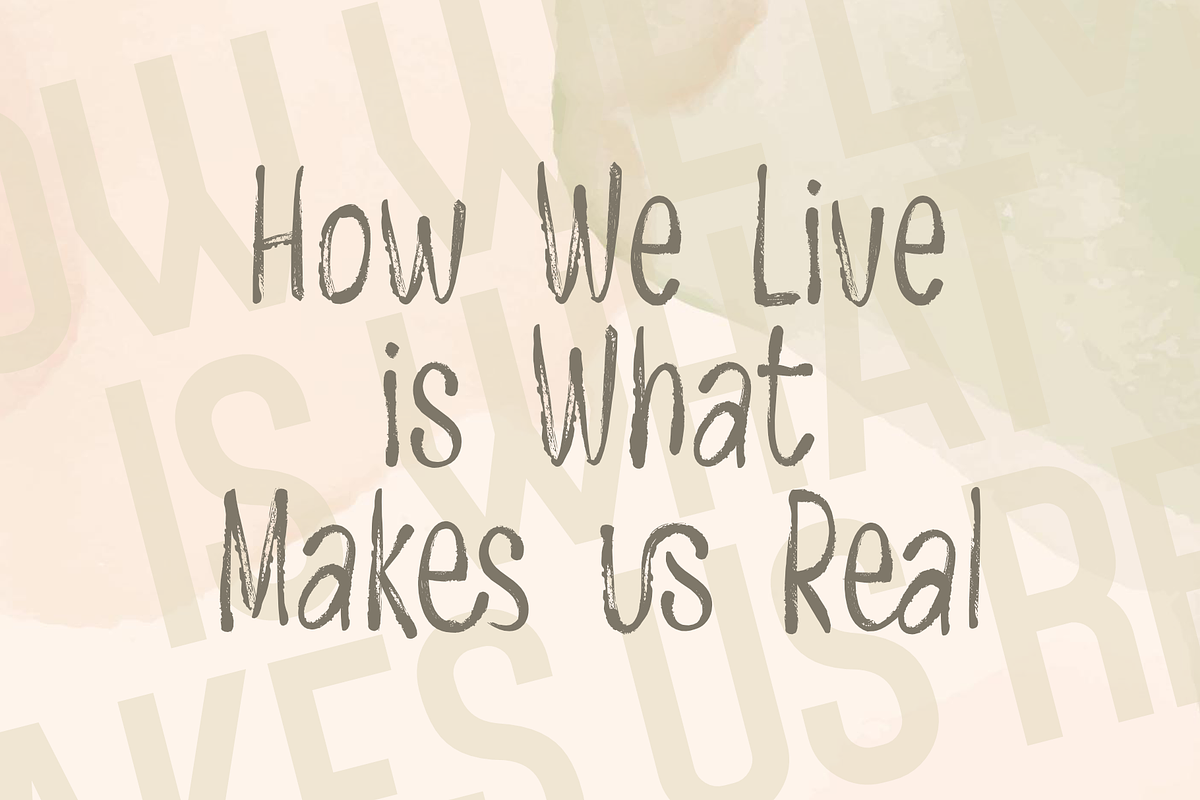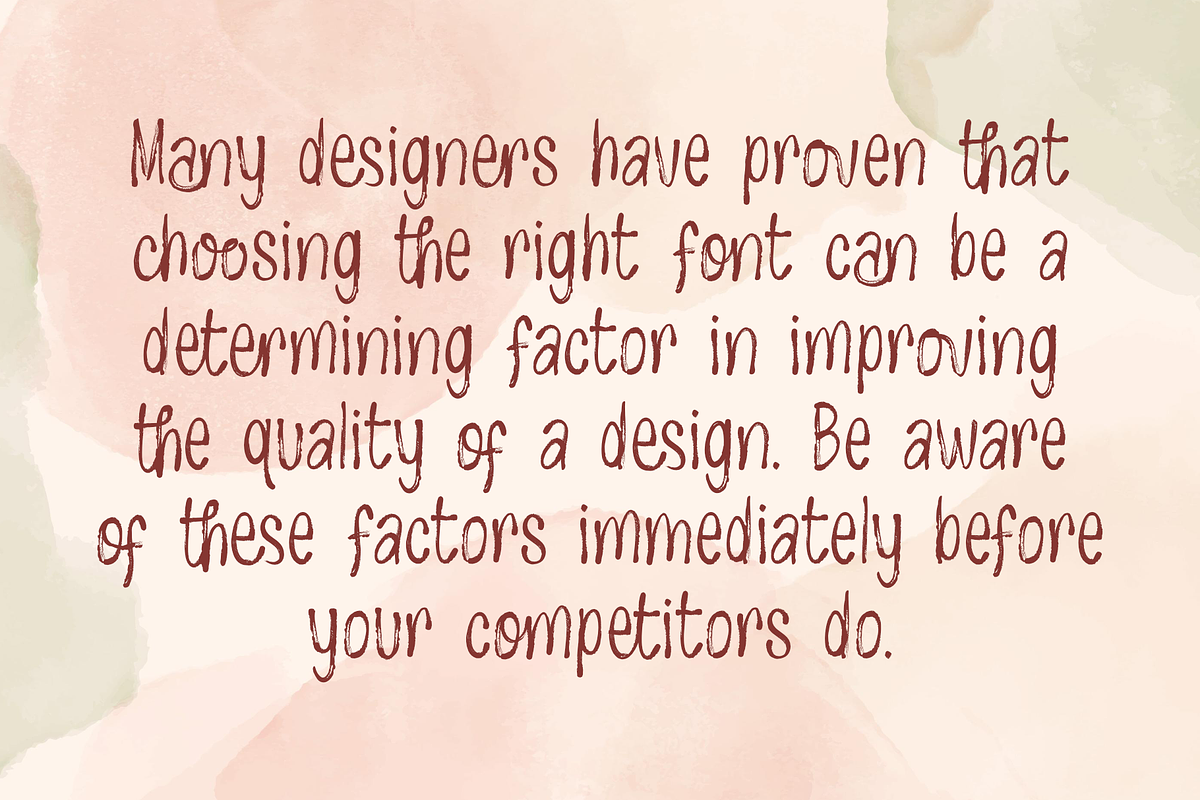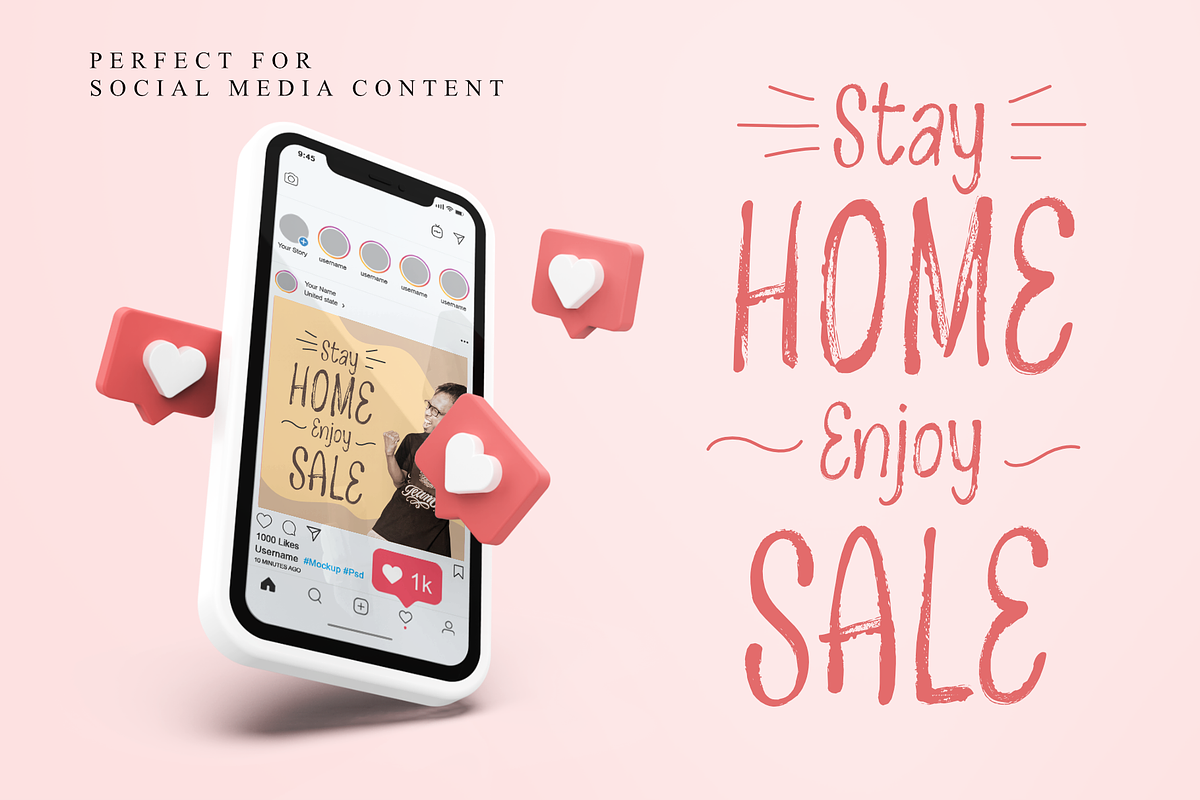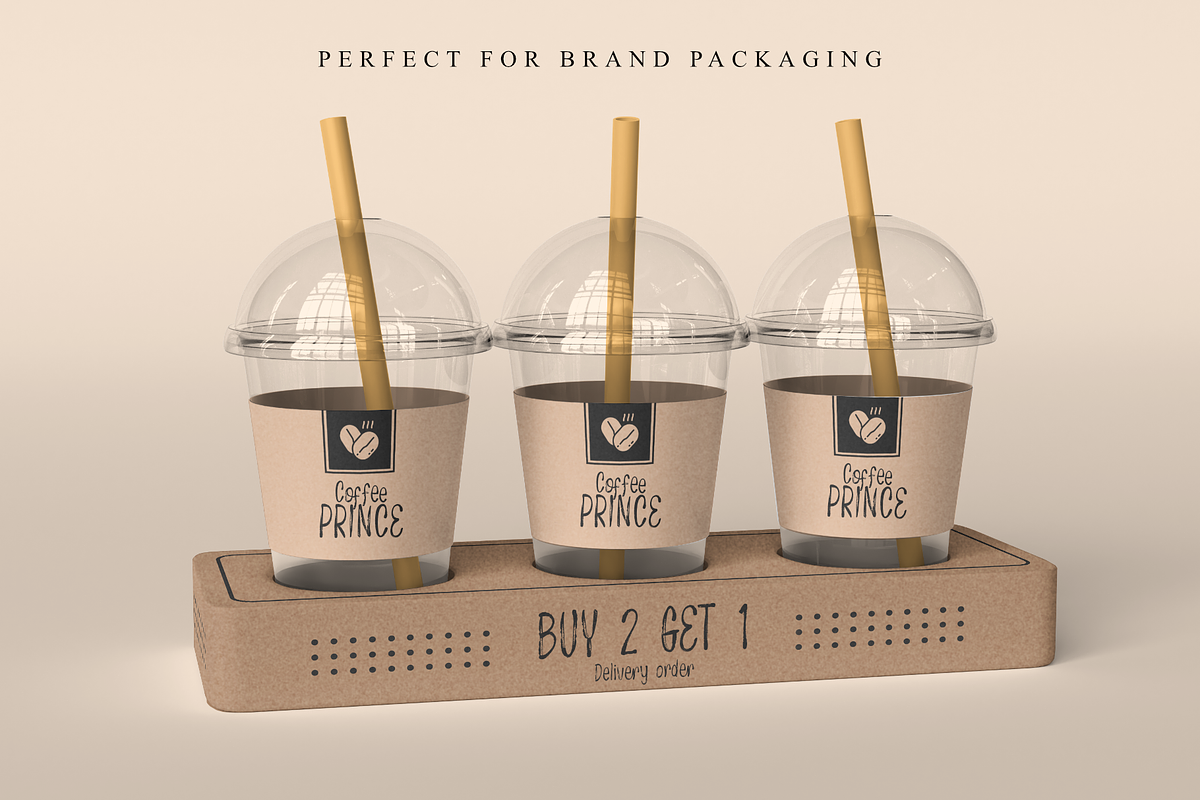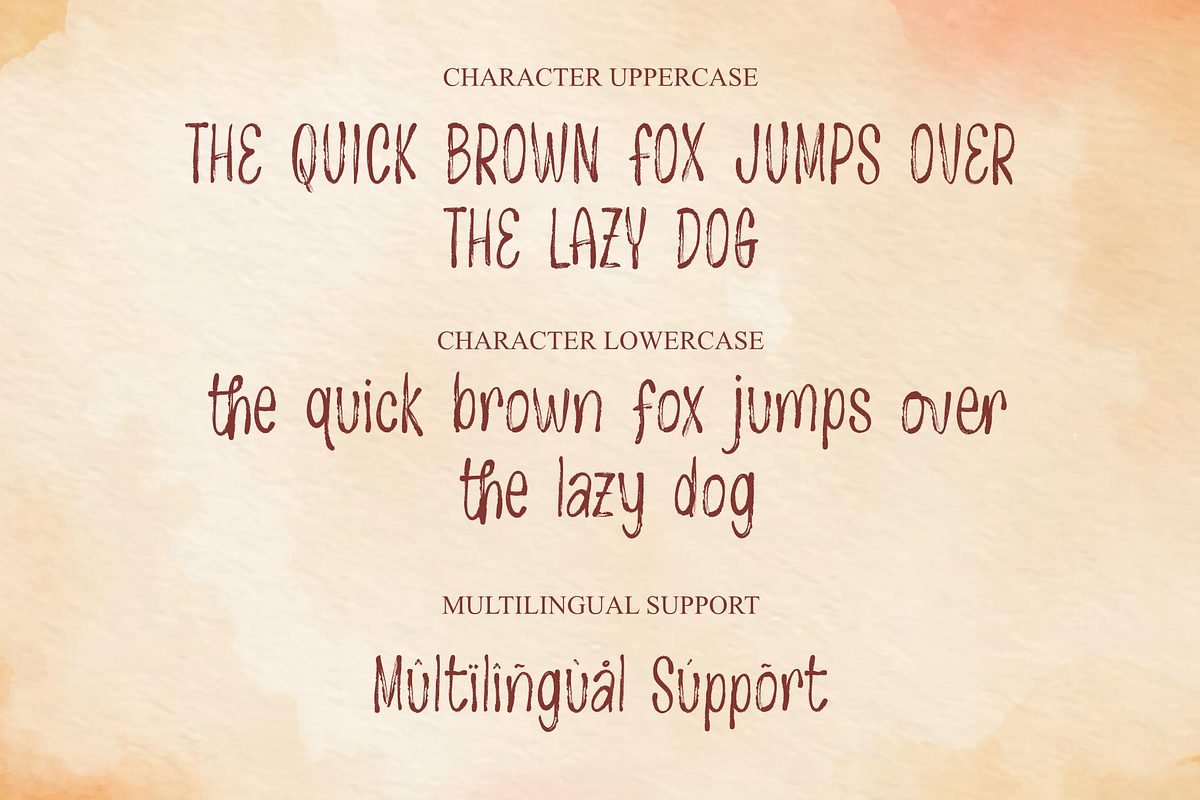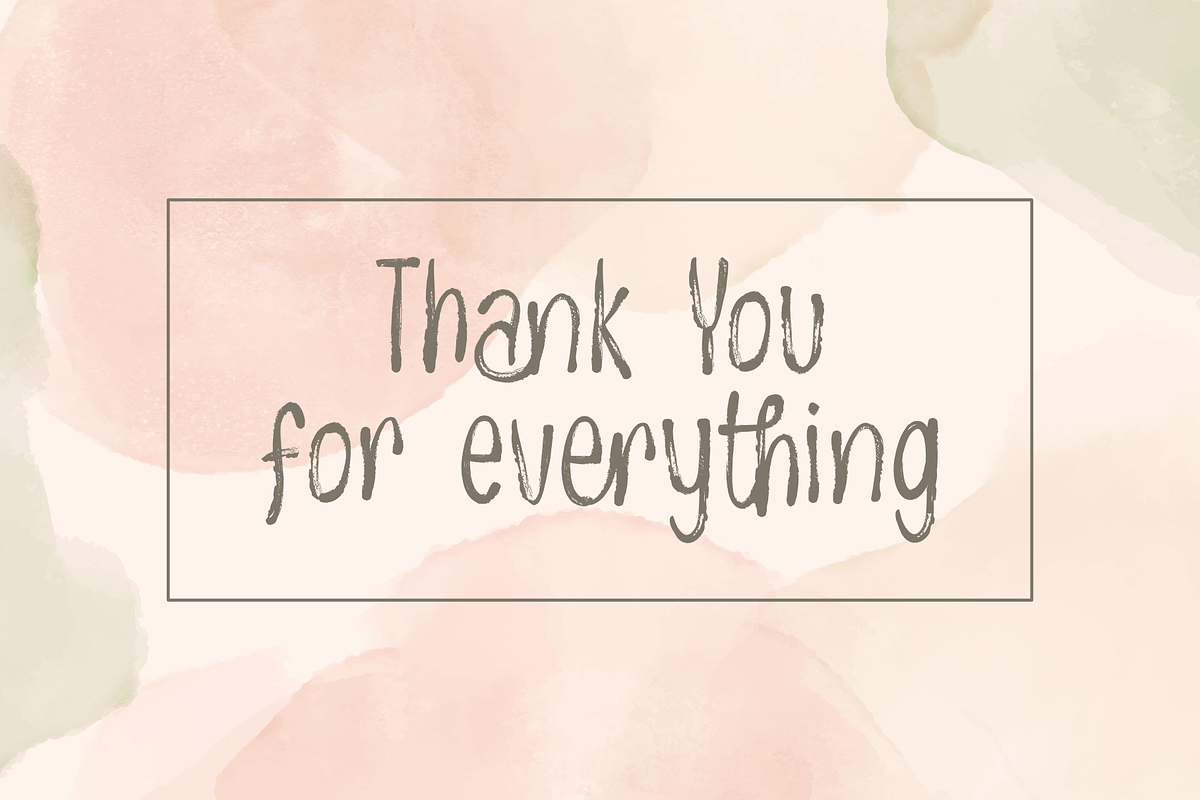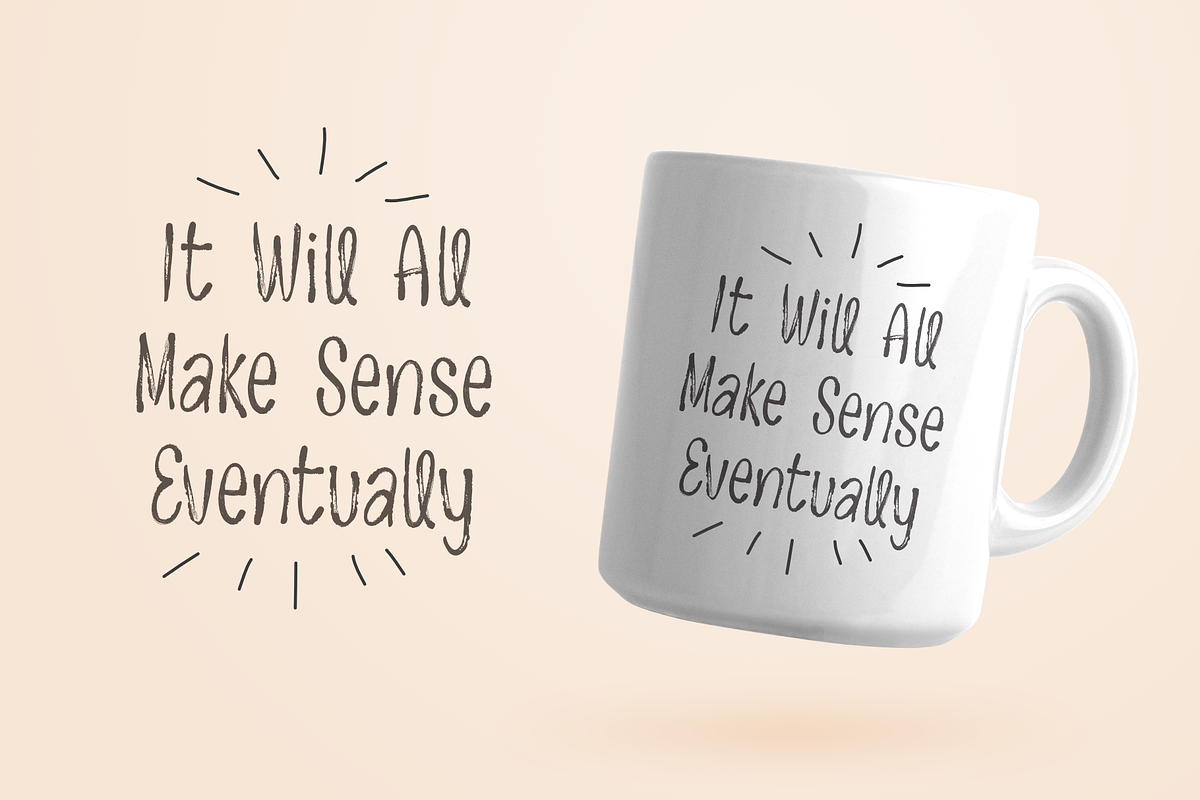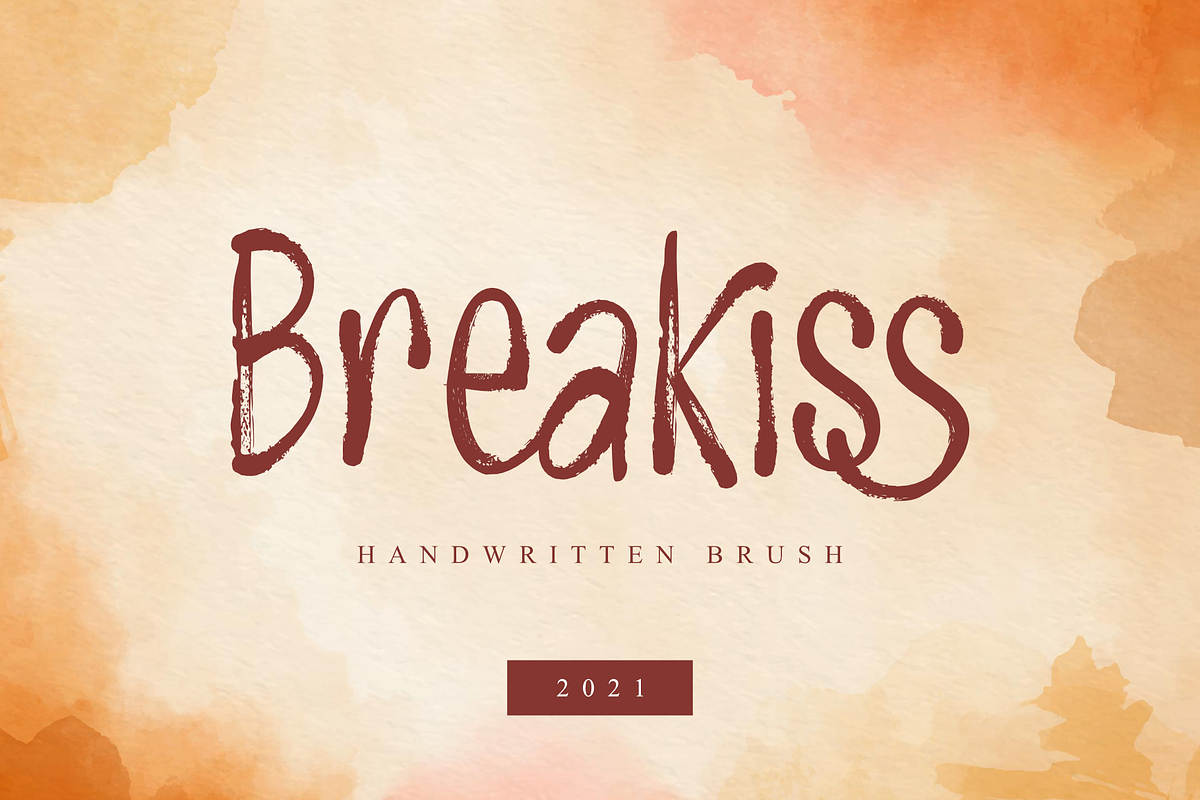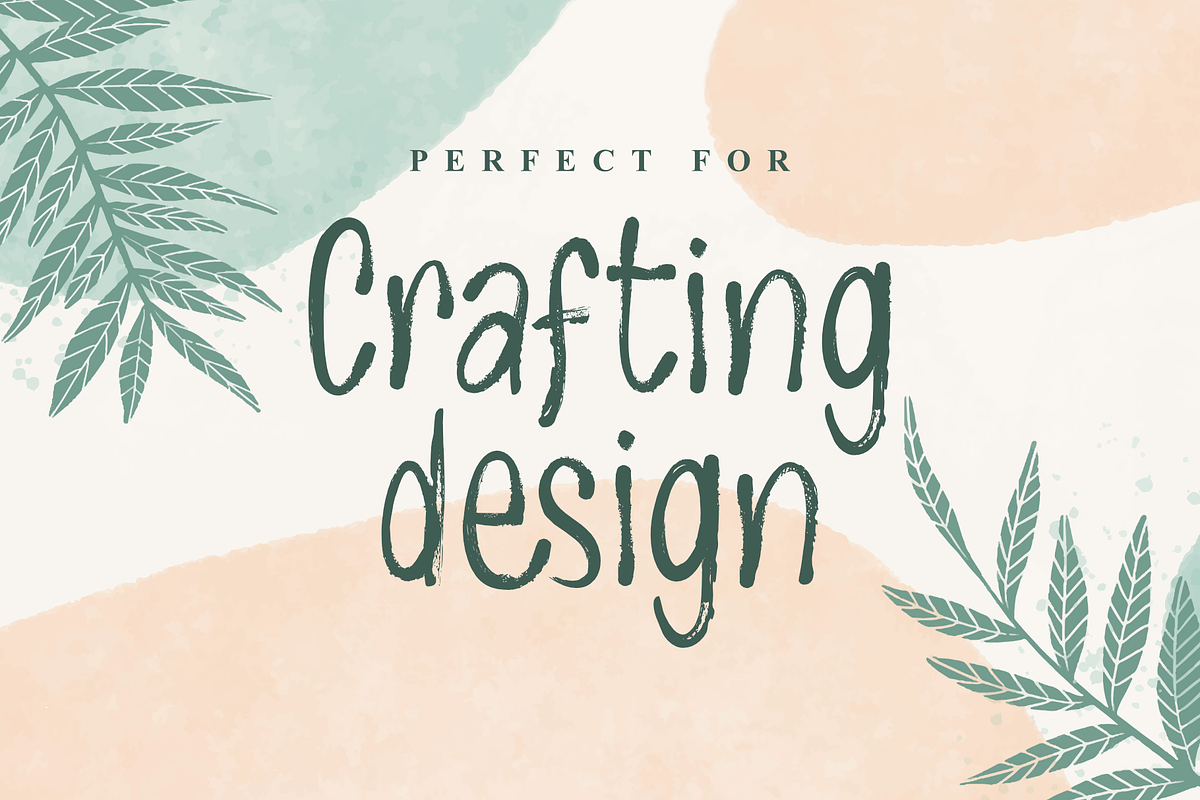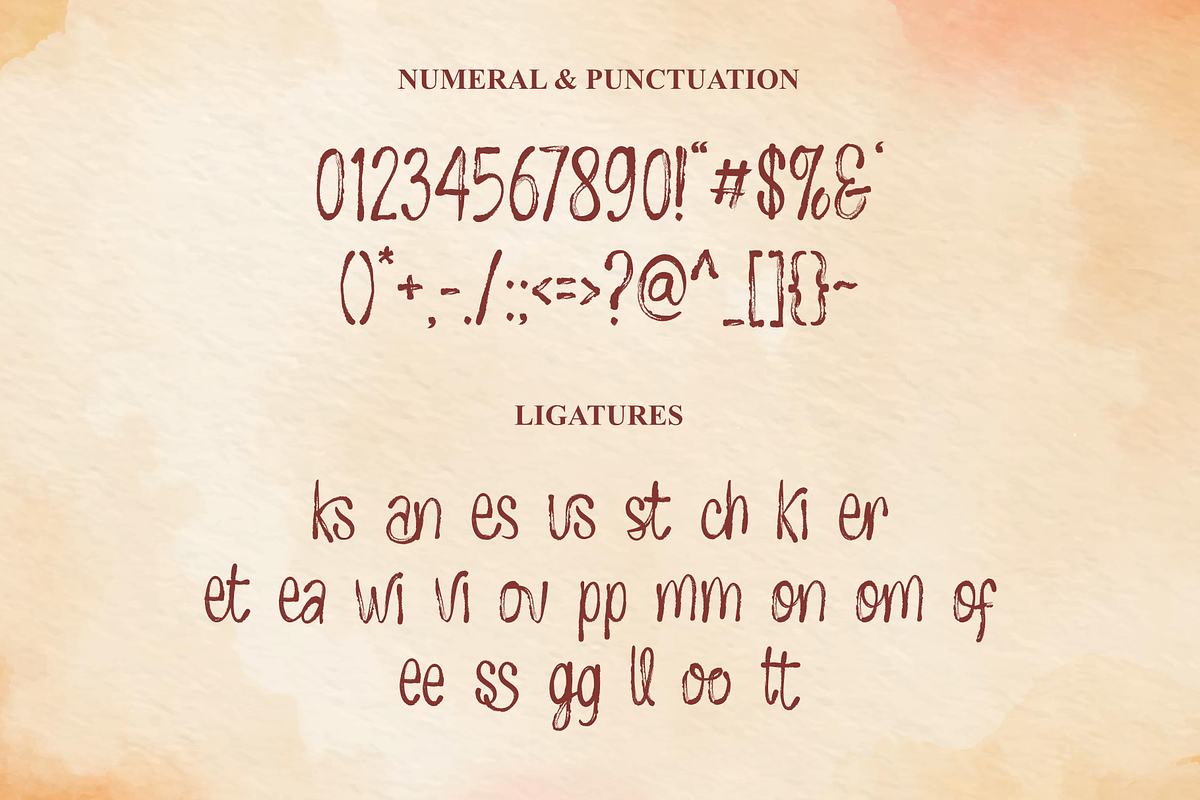
Breakiss - Handwritten Brush
Breakiss - Handwritten Brush is a crafted font created with the app using the brush tool in a relaxed and freestyle.
Breakiss is perfect for those of you who like to make craft designs, you will feel amazing when used for social media design, branding, advertising, product design, handwritten quotes, product packaging, posters, merchandise, and other designs.
- Multilingual Accent